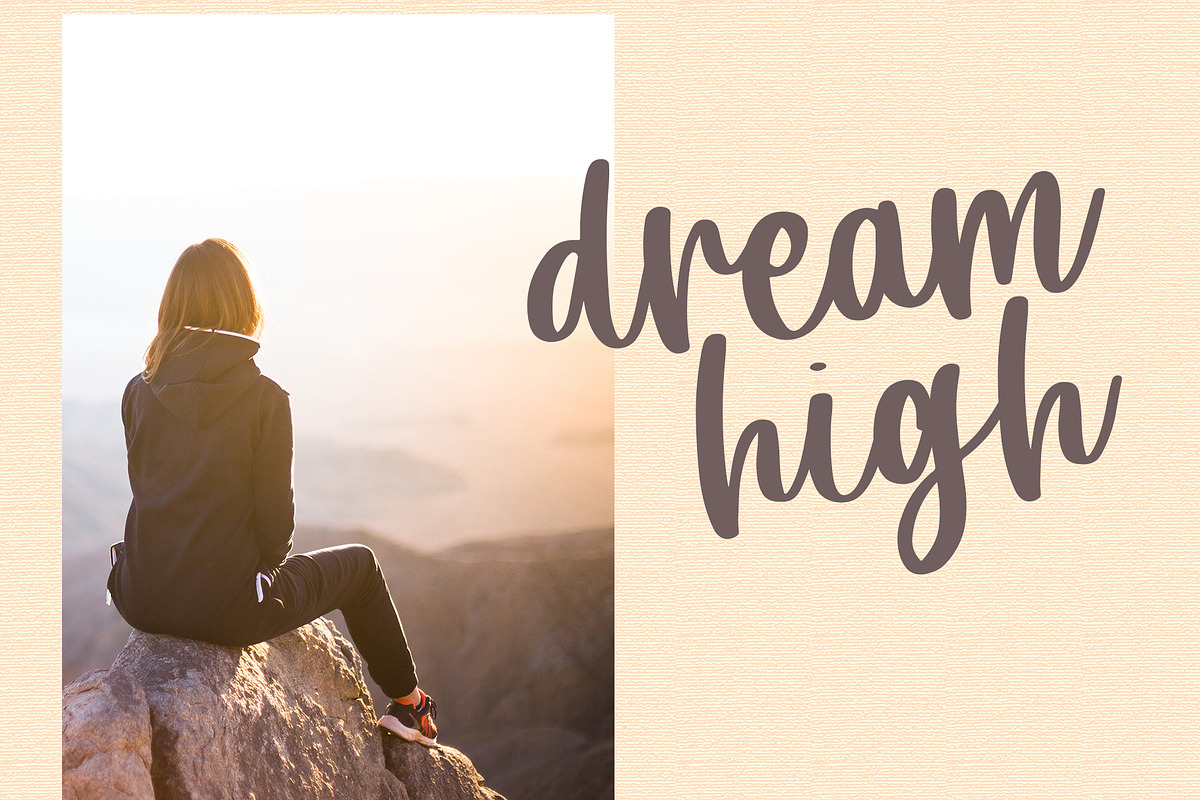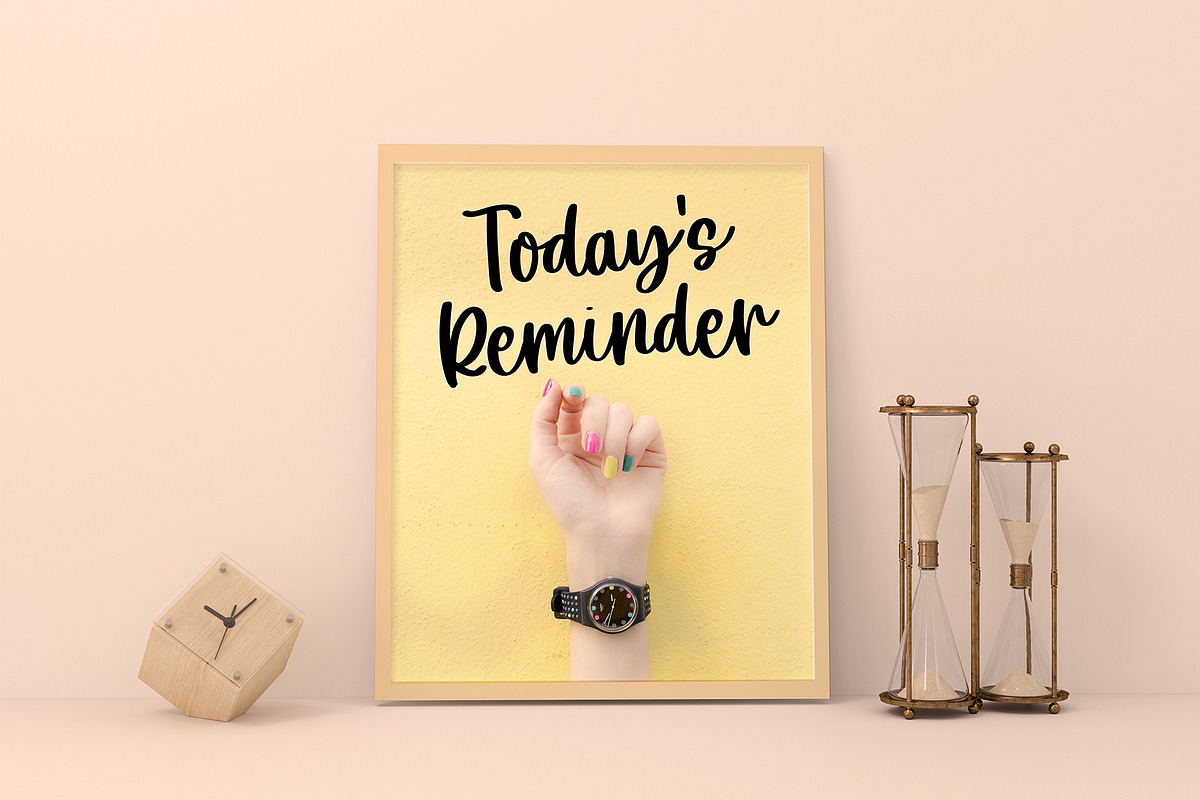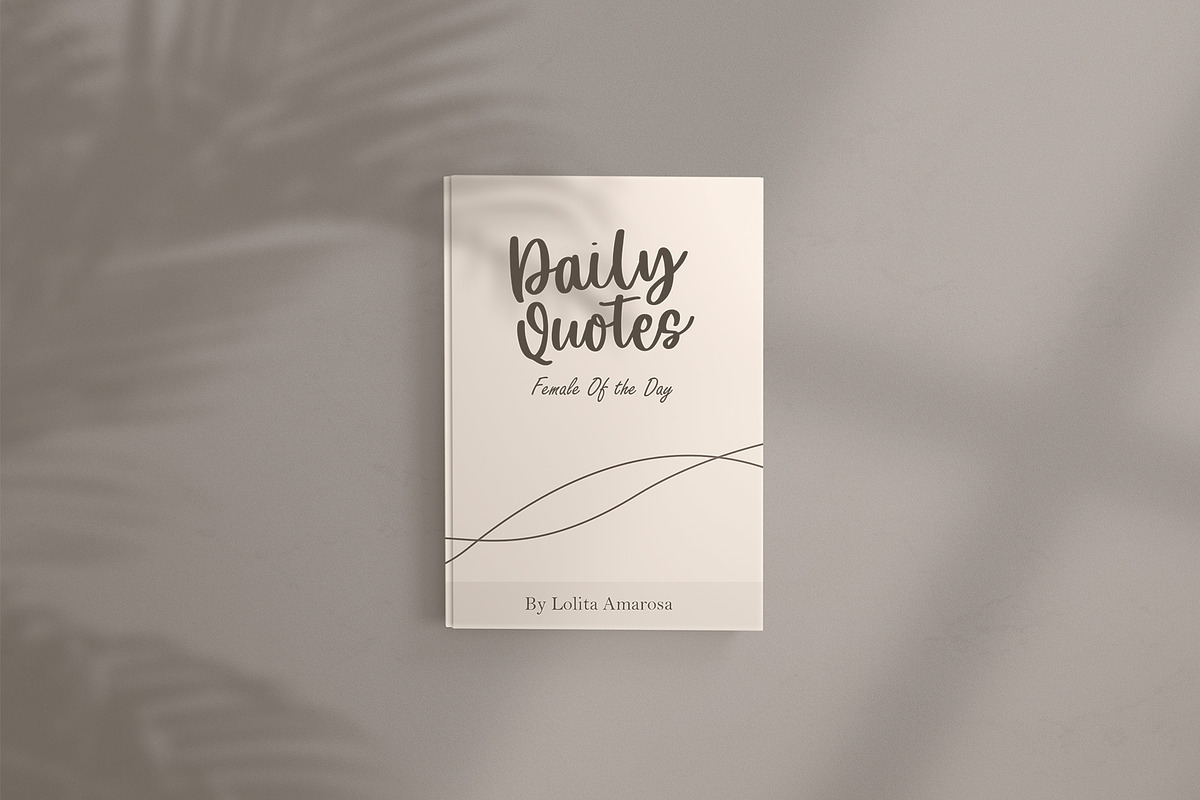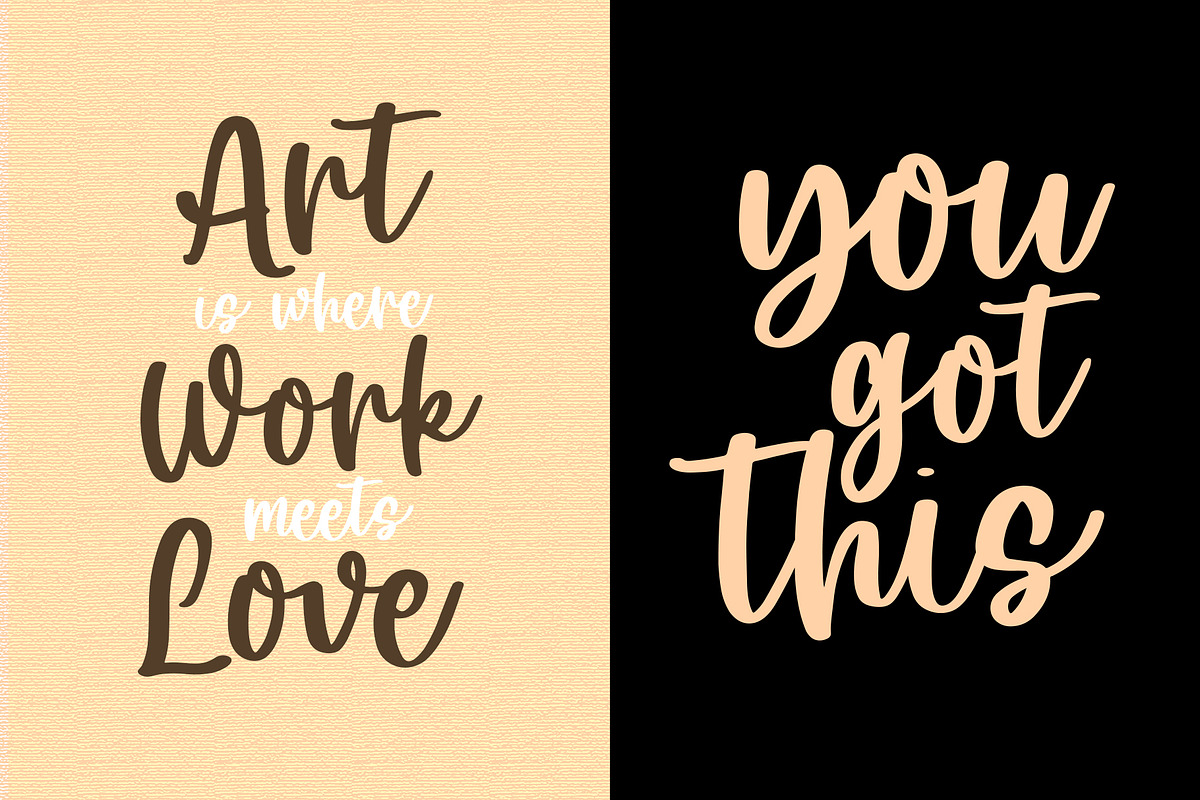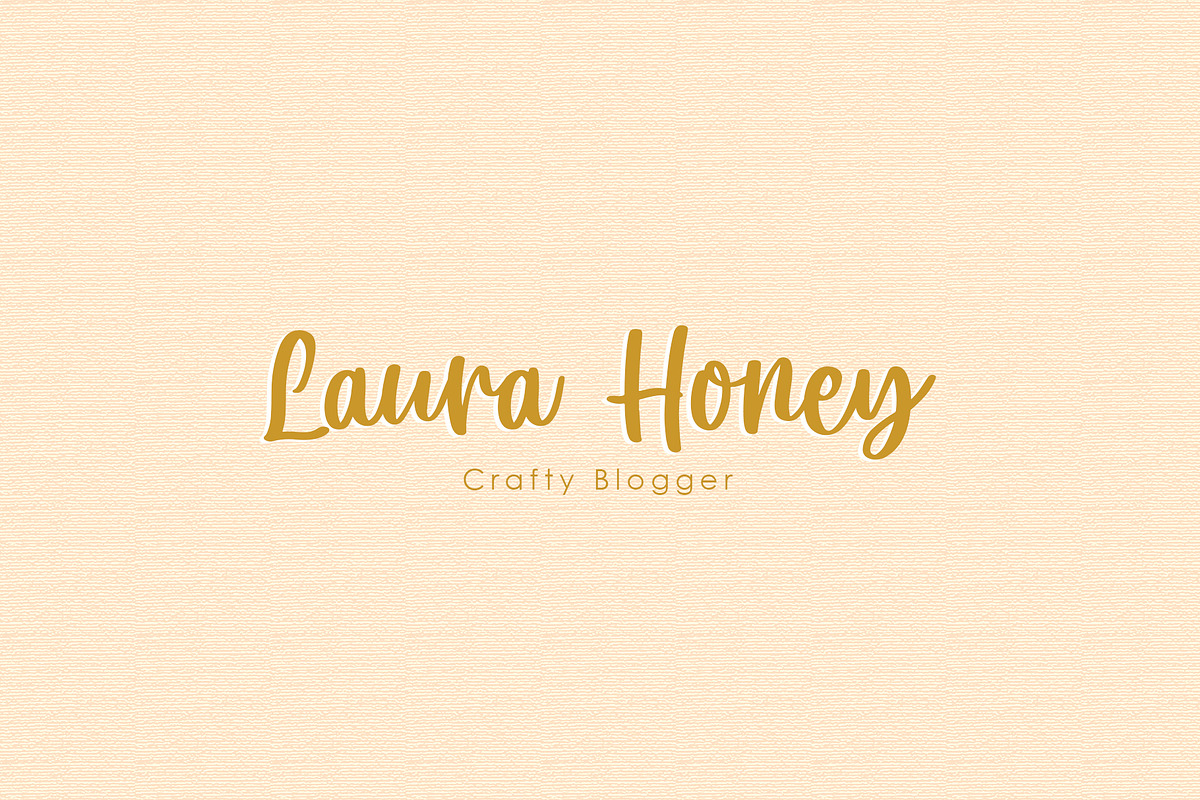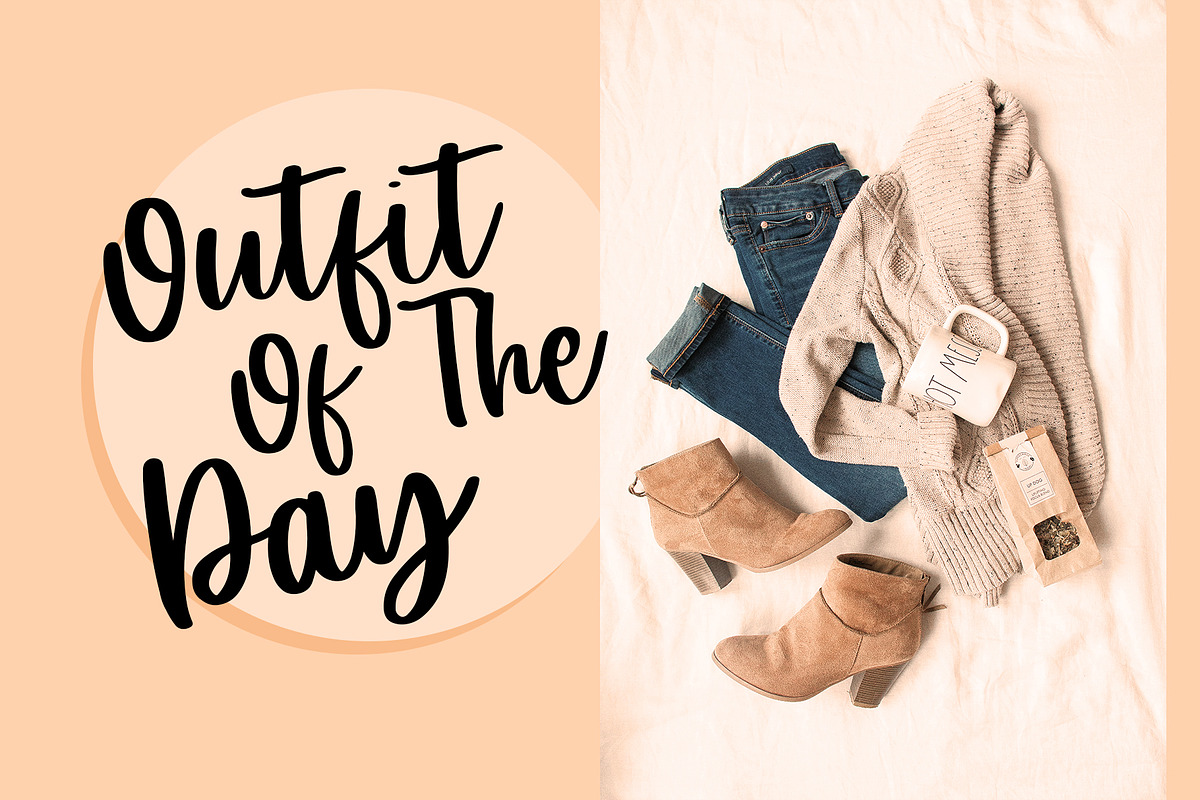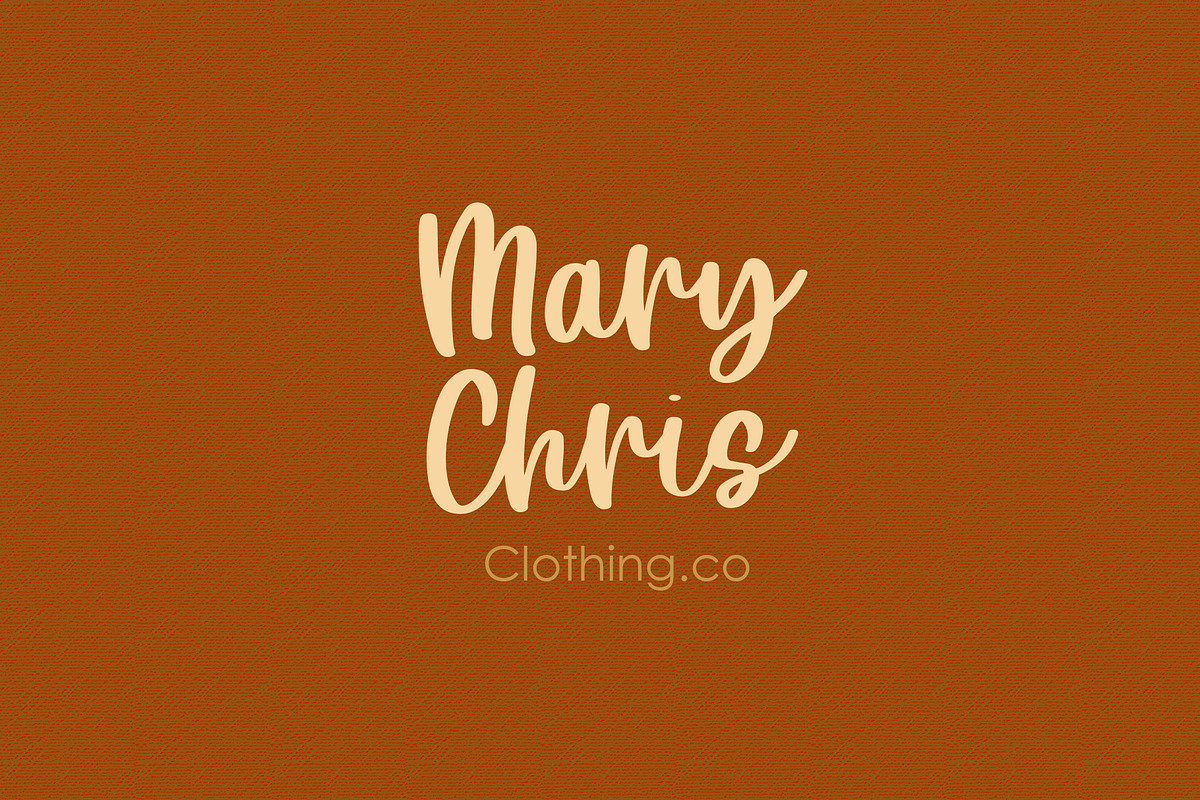
Artsy - Handwritten Font
Artsy Modern Handwritten Script Font
Get this lovable handwritten font for your lovely design, craft, quotes, homedecor, svg cut and much more!
Why Artsy - Handwritten Font is worth a look
Artsy - Handwritten Font by Dm Studio fits naturally into Branding, posters, packaging, typography.